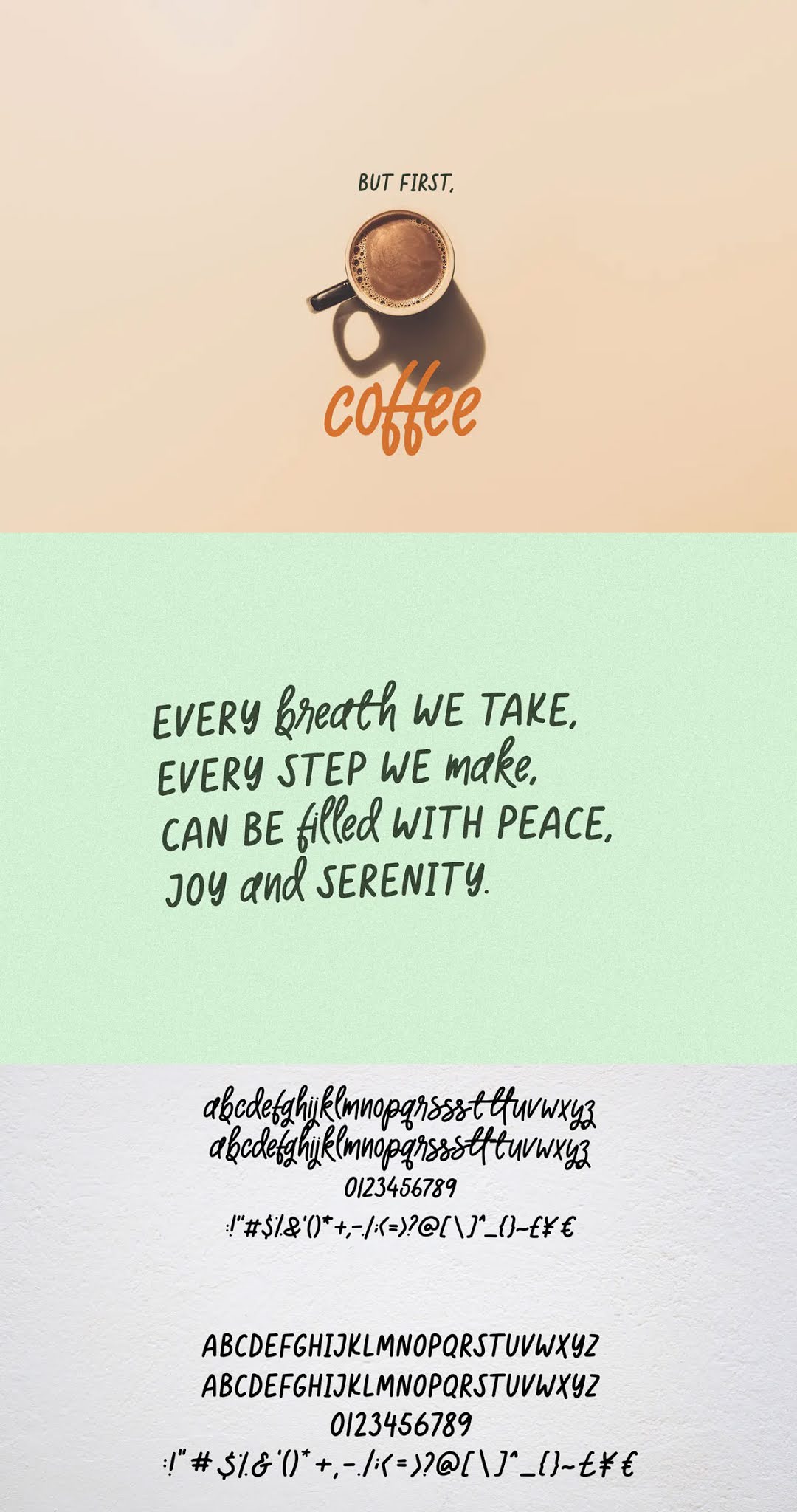
Sun Kissed – Handwritten Duo Font
Work great for any design needs: logo, branding, modern advertising design, logos, poster quote, book/cover Title, editorial design, website/blog, card, custom mug, pillow, t-shirts, and any hand-lettered needs.
Sun Kissed (.ttf + .otf + webfont) comes with upper and lowercase Standard Characters, Punctuation, and Numerals.
• Ligature
• Tons of glyphs